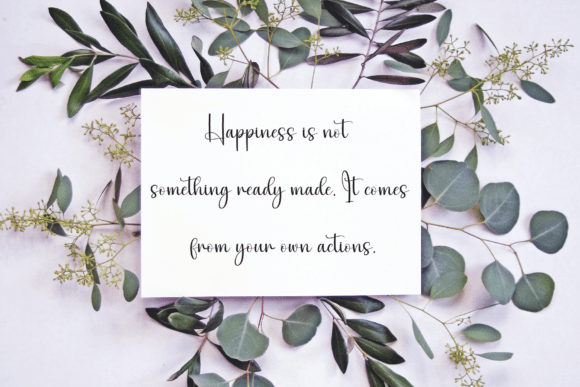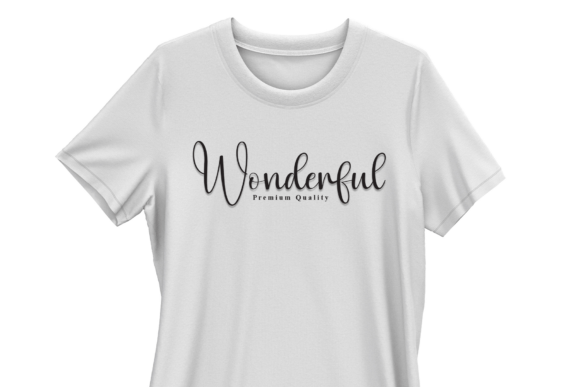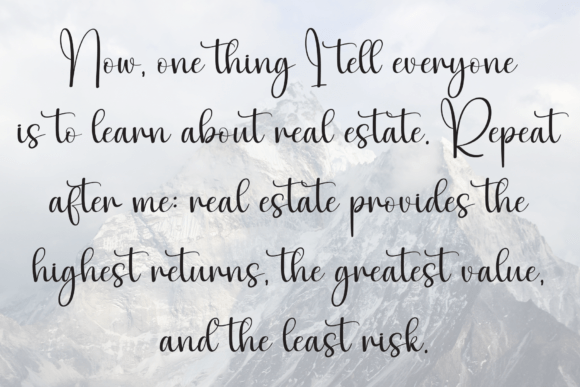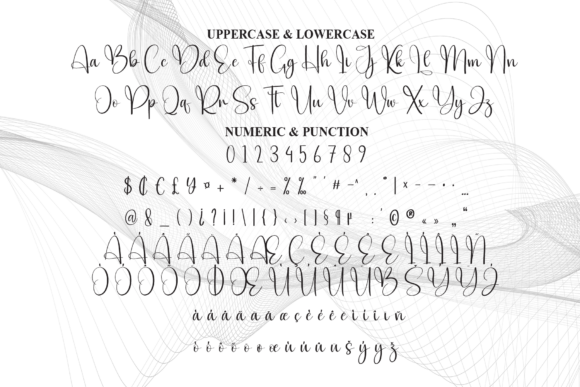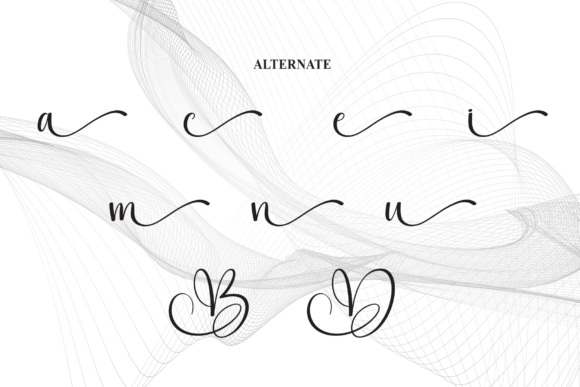
Introducing Blackline Font: Elevate Your Designs with Elegance and Charm
In the world of typography, few fonts manage to convey the perfect blend of elegance, charm, and sophistication. Blackline Font is one such script font that has captured the hearts of designers and crafters alike. With its smooth curves, graceful swashes, and handwritten feel, this font is ideal for adding a touch of romance and style to any design.
The Perfect Font for Weddings, Branding, and Social Media
Blackline Font is a versatile typeface that can be used in a variety of design applications. Whether you’re planning a wedding, creating a brand identity, or designing social media graphics, this font is sure to impress. Its elegant and flowing lines make it perfect for:
- Branding and logo design
- Invitations and event announcements
A Font that Adds a Personal Touch
One of the standout features of Blackline Font is its handwritten feel. The font’s smooth curves and flowing lines give it a personal and intimate feel, making it perfect for designs that require a touch of warmth and personality. Whether you’re crafting a signature logo or a heartfelt quote, Blackline Font adds a stylish flair that is sure to elevate your design.
Key Features of Blackline Font
So, what makes Blackline Font so special? Here are some of its key features:
- Elegant and flowing lines: Blackline Font features smooth, cursive lines that give it a sophisticated and elegant feel.
- Graceful swashes: The font’s swashes add a touch of drama and flair to your designs, making them perfect for headings and titles.
- Handwritten feel: Blackline Font’s handwritten feel gives it a personal and intimate touch, making it perfect for designs that require a touch of warmth and personality.
- Versatile: Blackline Font can be used in a variety of design applications, from weddings and branding to social media and invitations.
Tips for Using Blackline Font
To get the most out of Blackline Font, here are some tips to keep in mind:
- Use it sparingly: Blackline Font is a statement font, so use it sparingly to add emphasis and elegance to your designs.
- Pair it with a sans-serif font: Pairing Blackline Font with a sans-serif font can create a beautiful contrast and add visual interest to your designs.
- Experiment with swashes: Blackline Font’s swashes can add a touch of drama and flair to your designs. Experiment with different swash styles to find the one that works best for your design.
Blackline Font is a beautiful script font that is sure to elevate your designs with its elegance, charm, and sophistication. With its smooth curves, flowing lines, and handwritten feel, this font is perfect for weddings, branding, social media, and invitations. Whether you’re a designer or crafter, Blackline Font is a must-have font that will add a personal and stylish touch to any design.